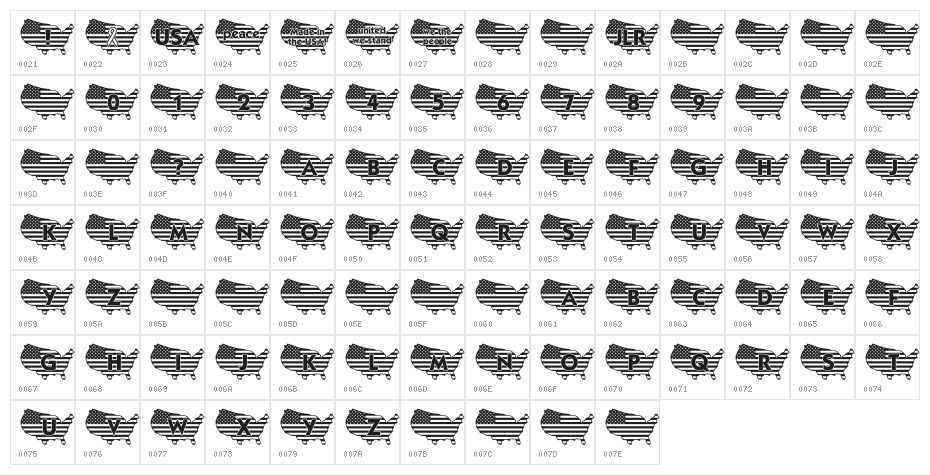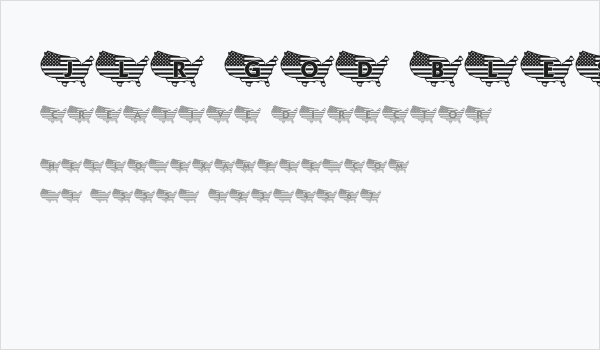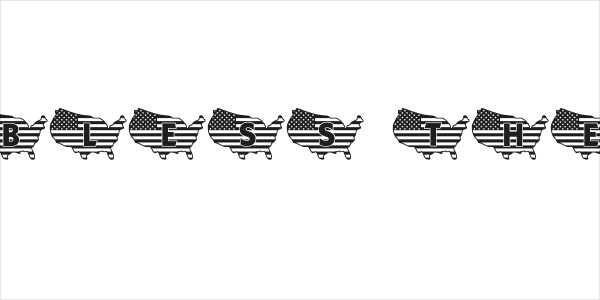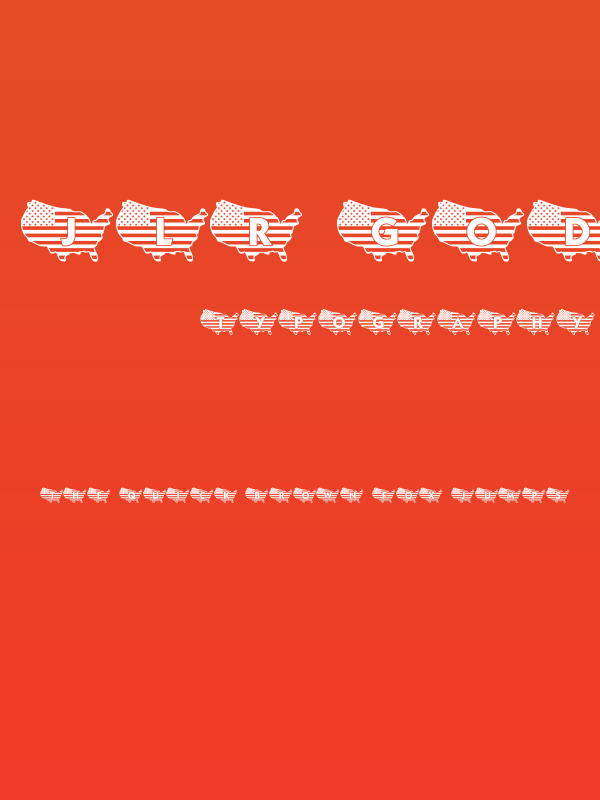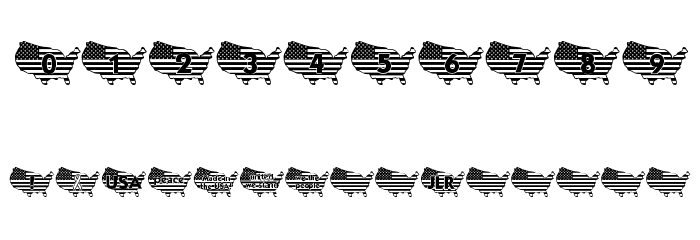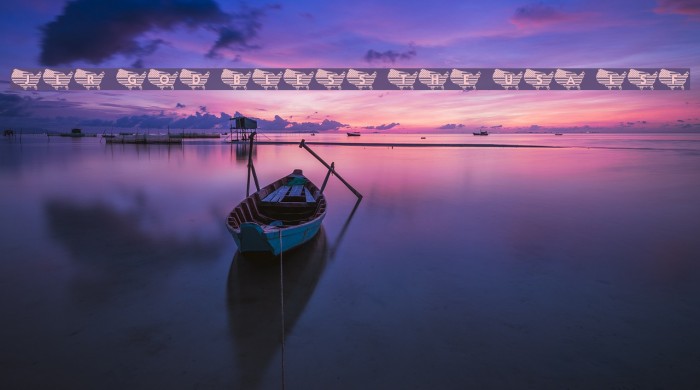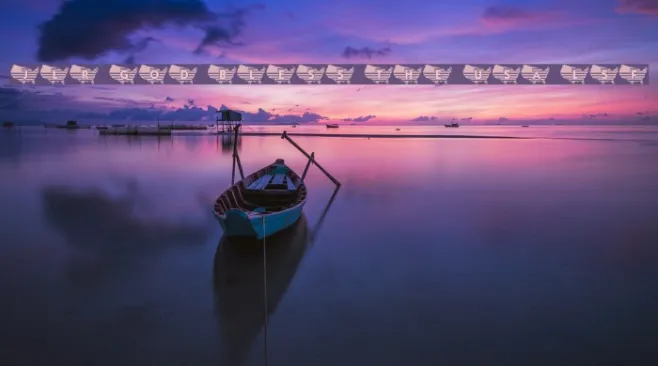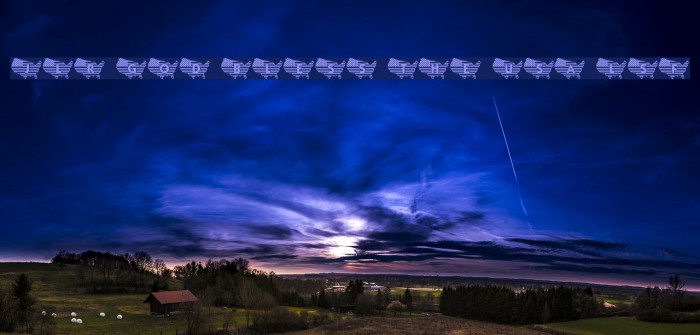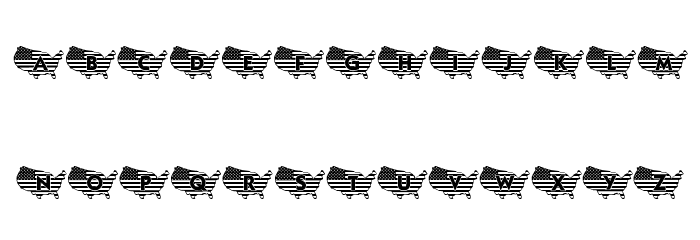
JLR God Bless the USA LSF Font
JLR God Bless the USA LSF Description
This font features characters designed within the silhouette of the United States map, incorporating the American flag's stars and stripes as a backdrop. Each letter and number is creatively integrated into this patriotic theme, making it highly decorative and unique. The design is bold and striking, with a strong emphasis on national pride. The characters are evenly spaced within the map outline, ensuring readability while maintaining the thematic design. This font is perfect for projects that aim to evoke a sense of patriotism or celebrate American culture.